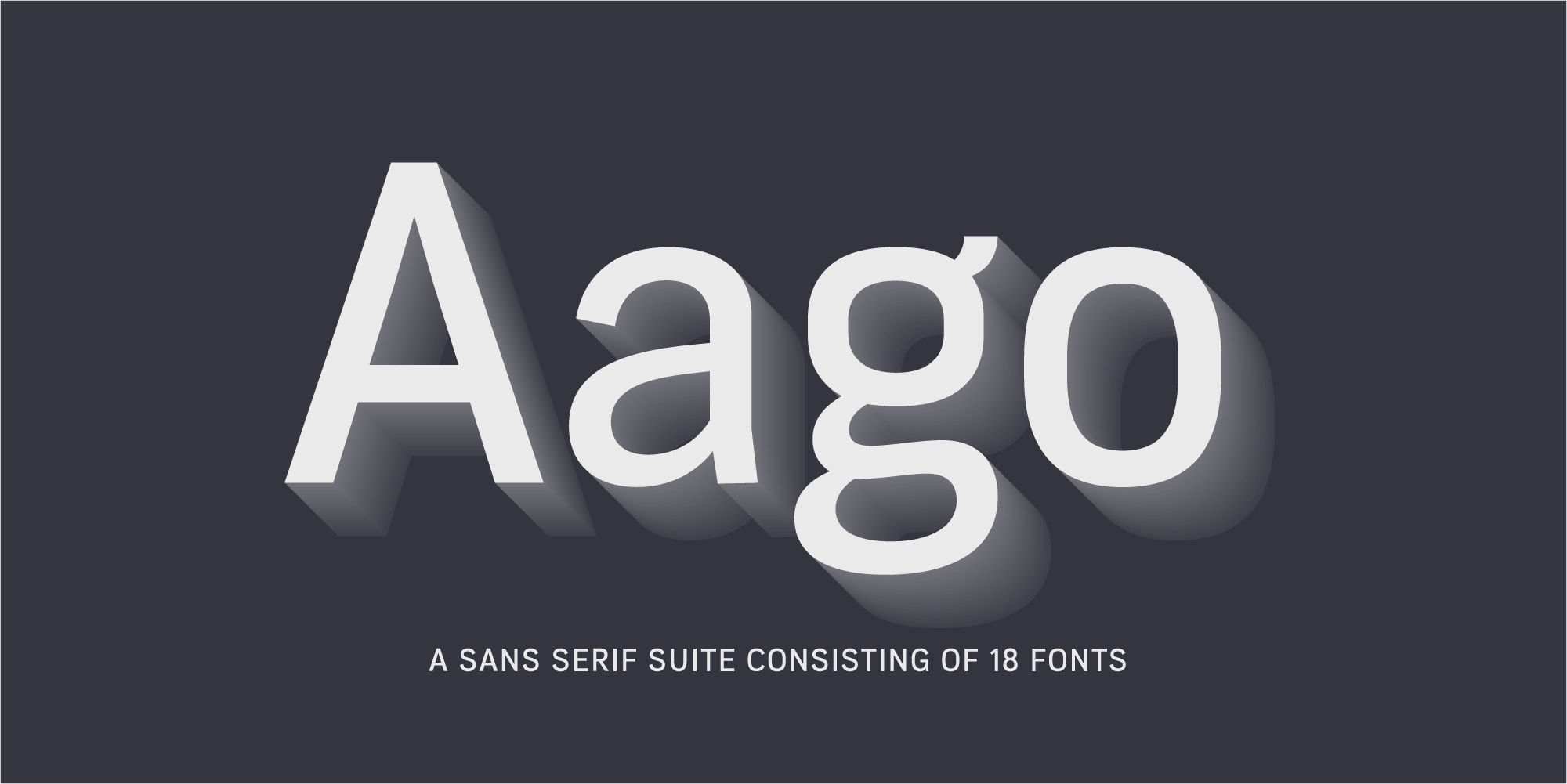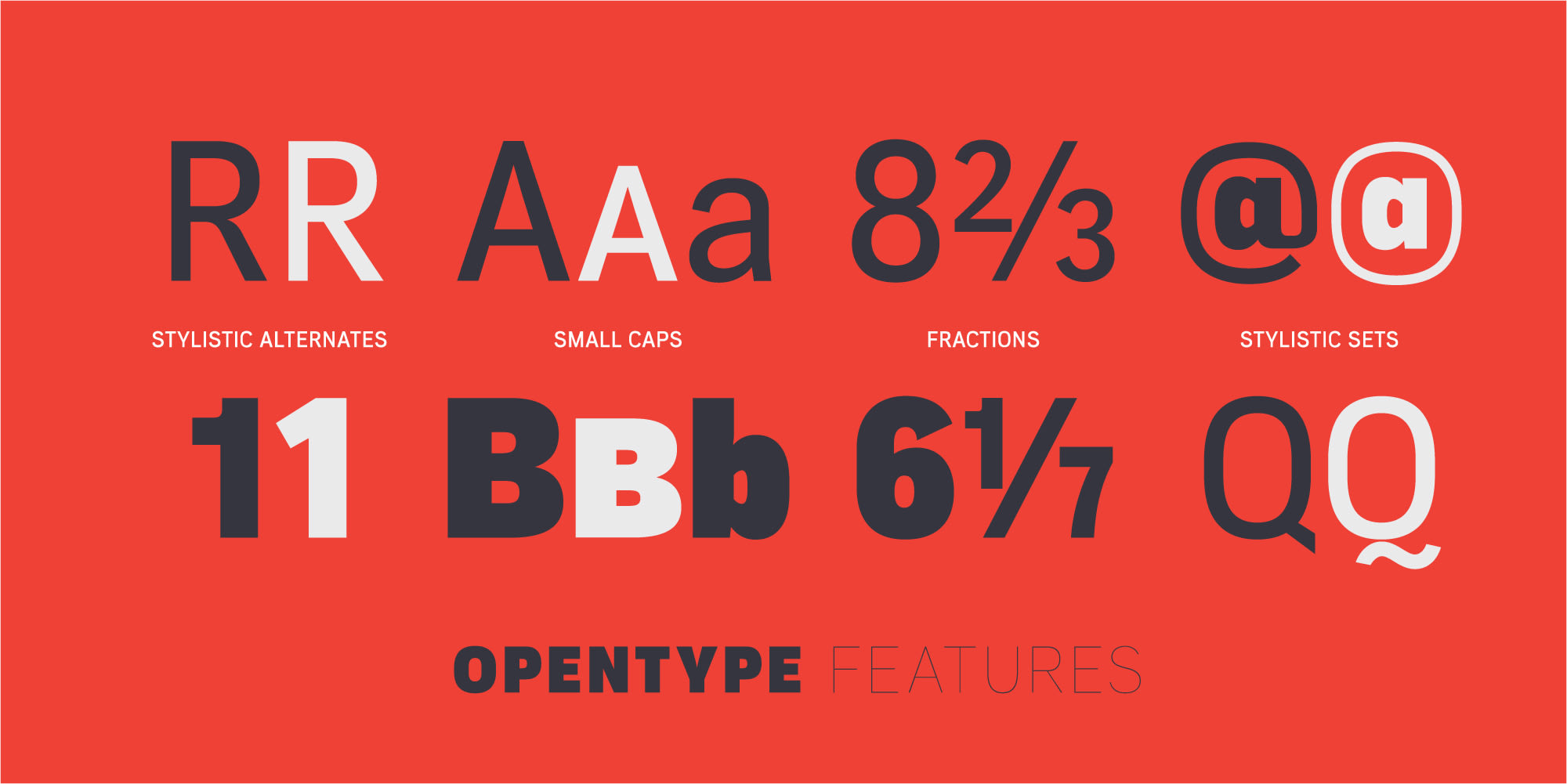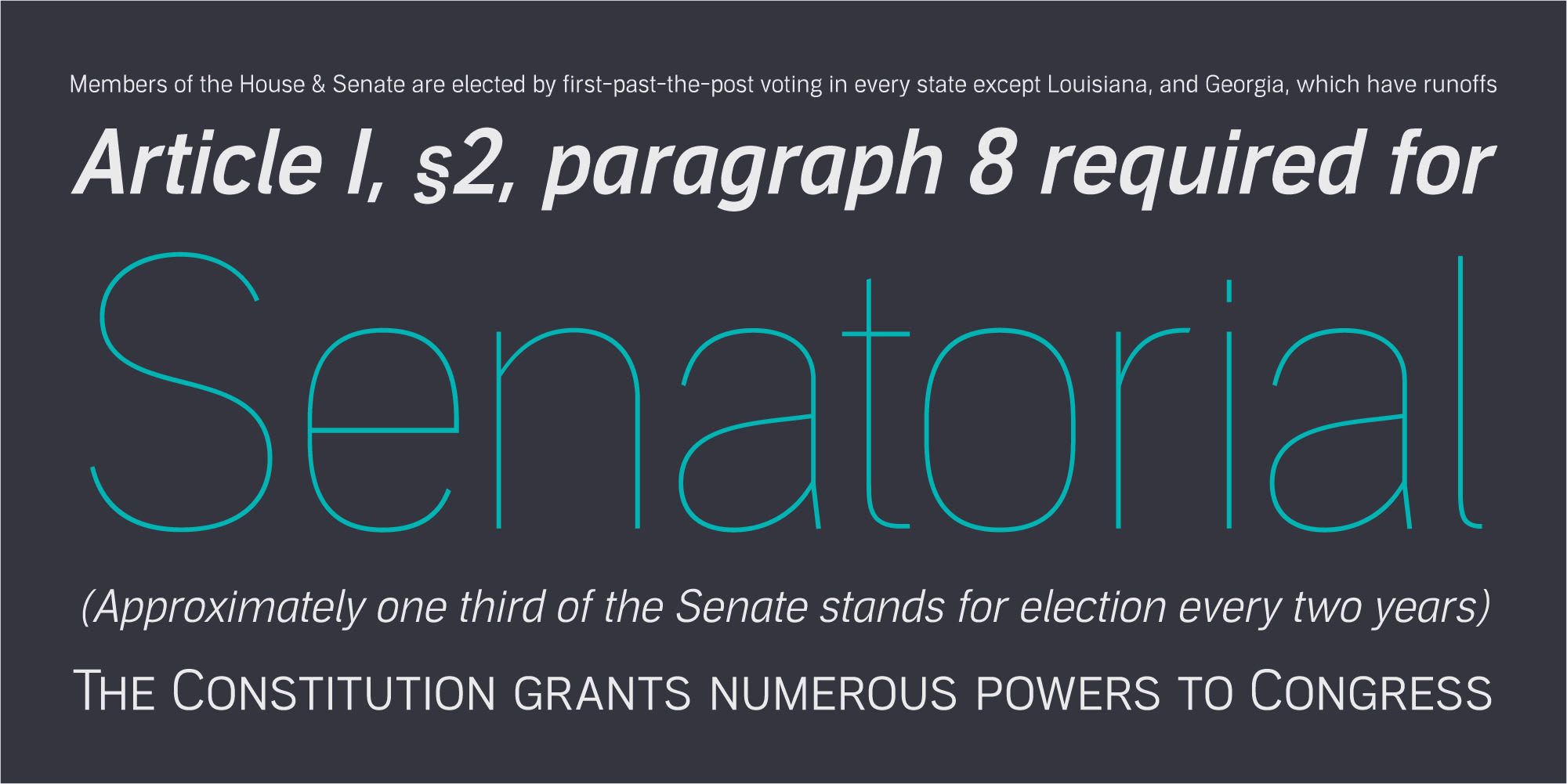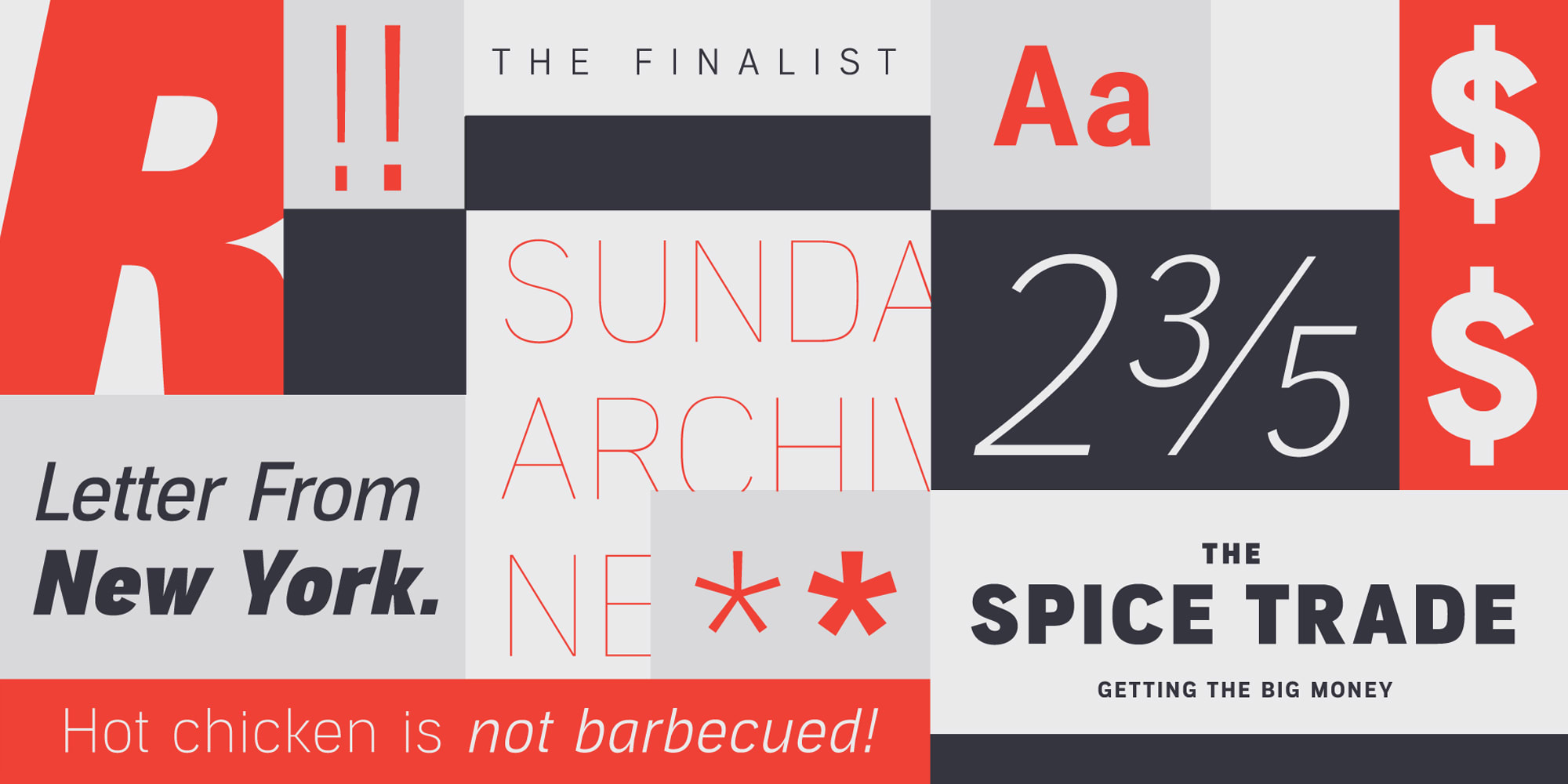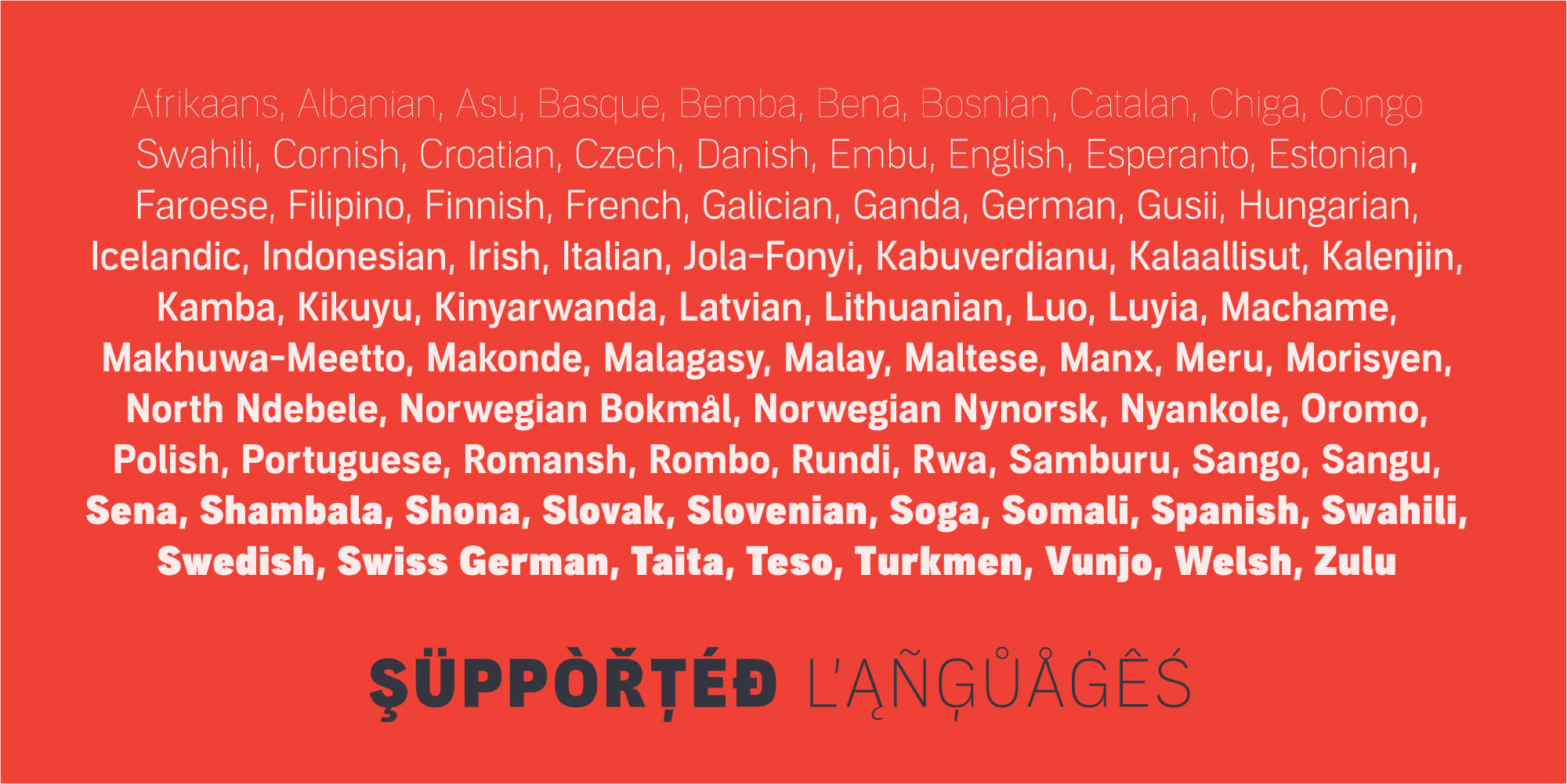
Aago
Designer:Neil Summerour
OpenType Features
Small Caps
Small Capssmcp
56/789 6/7
Fractionsfrac
H: [H] «H»
Case-Sensitive Formscase
J K Q R k r
Stylistic Set 1ss01
@
Stylistic Set 2ss02
@
Stylistic Set 3ss03
Description
Aago is year-long project to create a sans inspired by Positype’s popular Aaux Next typeface, but not beholden to its previous conventions.
54 fonts spread across 3 widths, 9 weights, and each with matching italics.
Drawn from the ground up to “just work well” across print and screen uses, Aago provides a comfortable, not too wide footprint with hopes of becoming a go-to utilitarian typeface perfect for packaging, branding and identity systems, poster and billboards, small and HD screens alike.